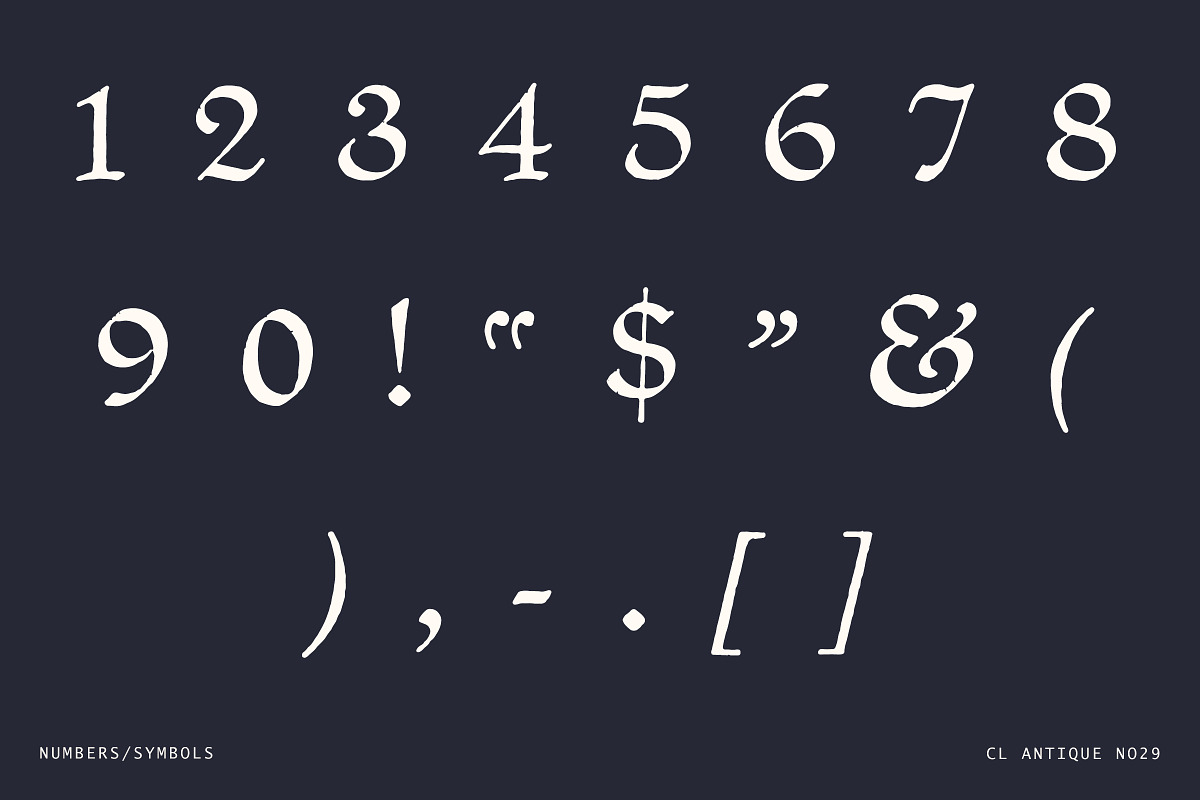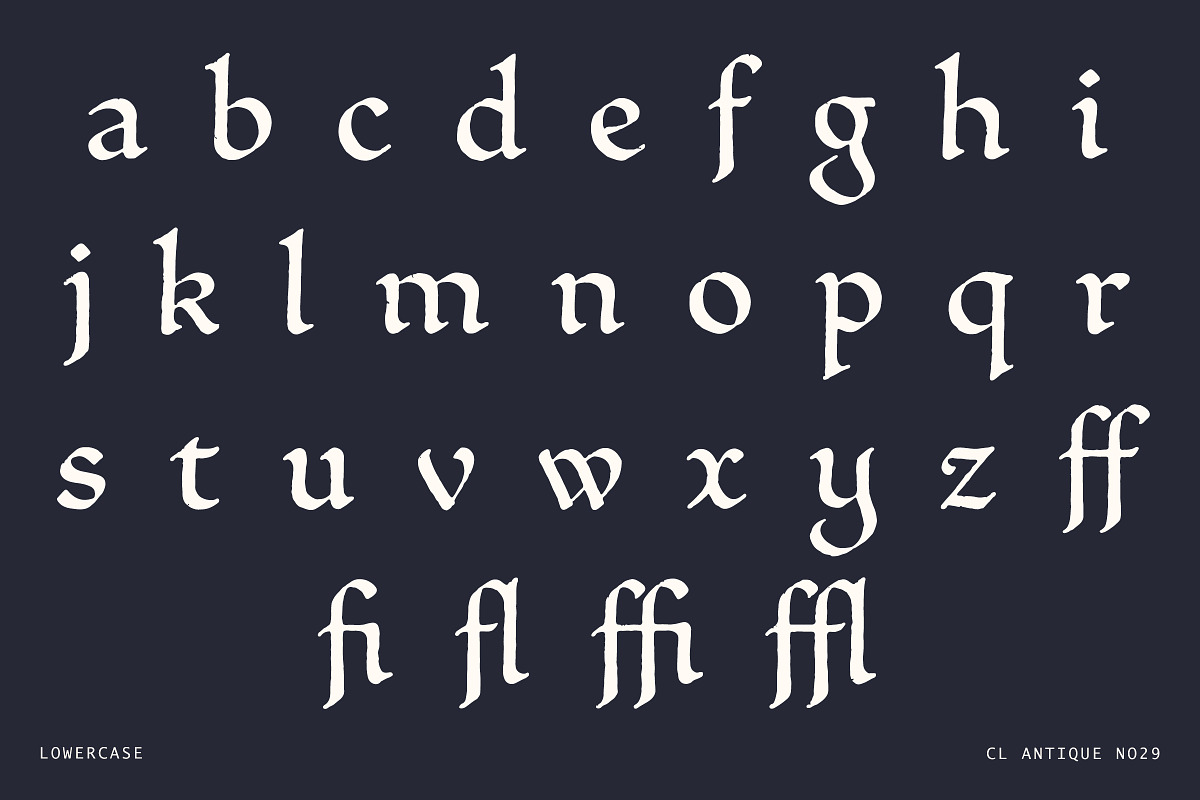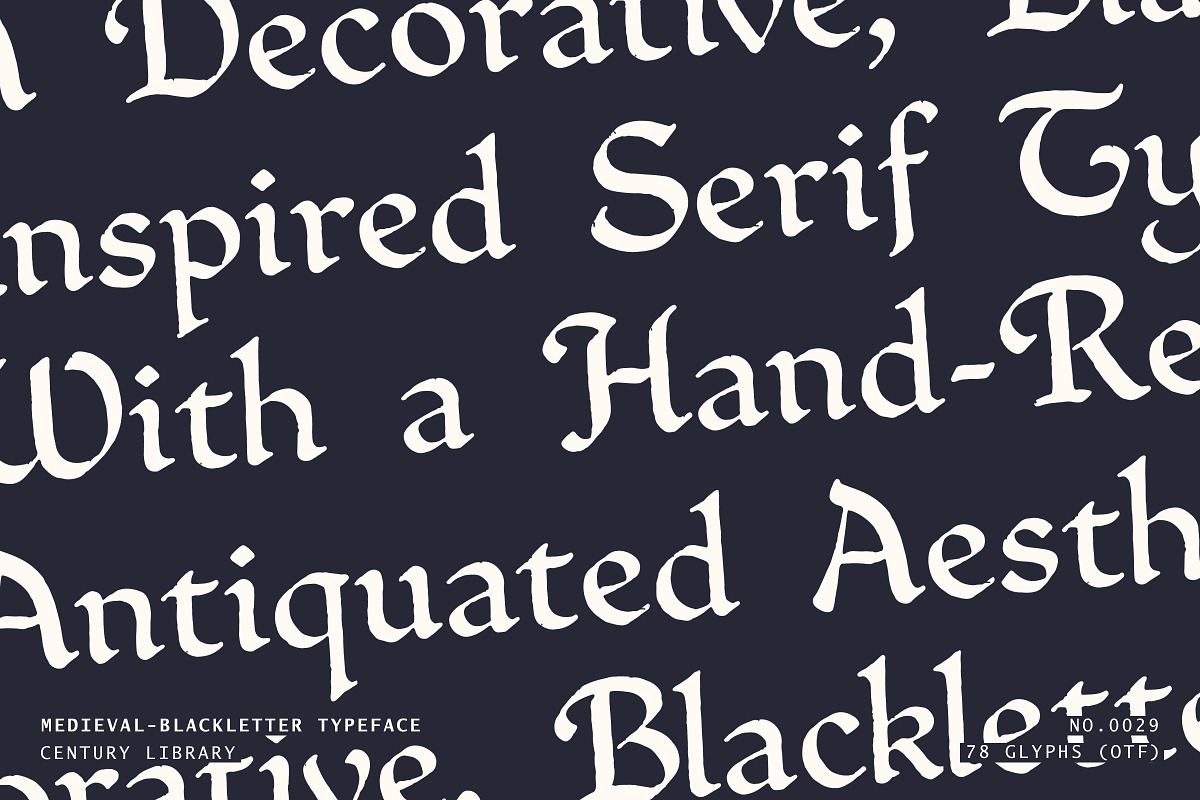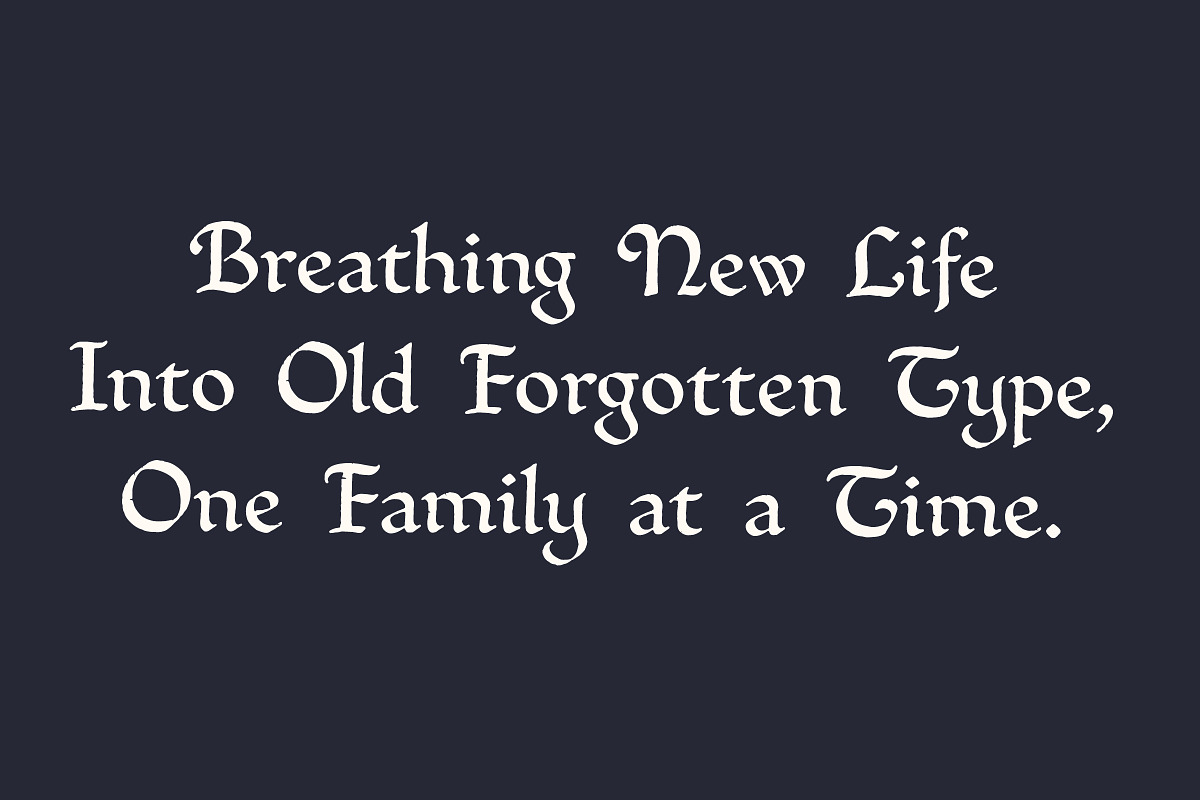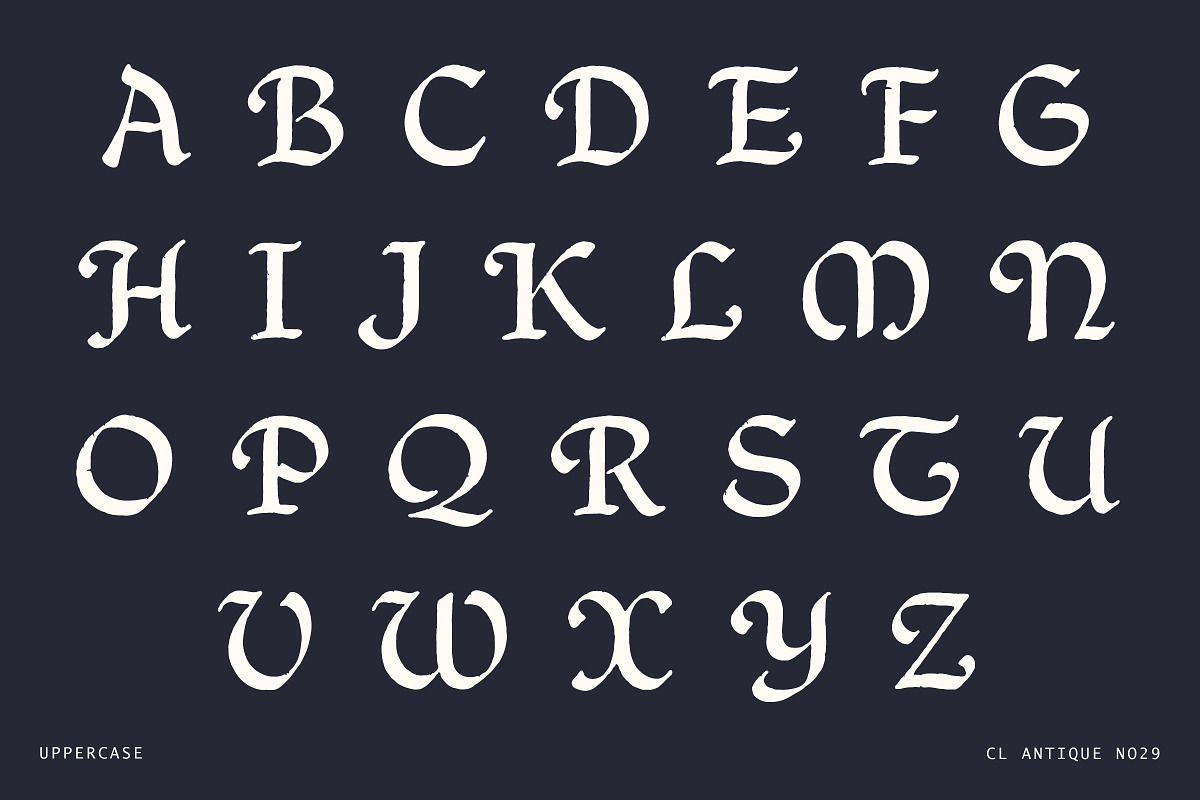
Decorative Medieval Blackletter Font
CL Antique No.29 is a decorative, blackletter-inspired serif with just the right touch of roughness. Sourced from a late 1800s specimen, every letter’s been lovingly restored, keeping the charm, grit, and historical oddities fully intact.
It’s got that perfect balance of drama and restraint: detailed enough for headings and standout statements, yet legible enough to hold its own in more extended text use. Think medieval manuscripts meet tattoo parlor signage.
Great for branding, posters, apparel, gothic artwork, editorial spreads, and anything that needs a bold nod to the past.
- Uppercase A–Z
- Lowercase a–z
- Numbers & Select punctuation
- Basic Ligatures ff, fi, fl, ffi, and ffl